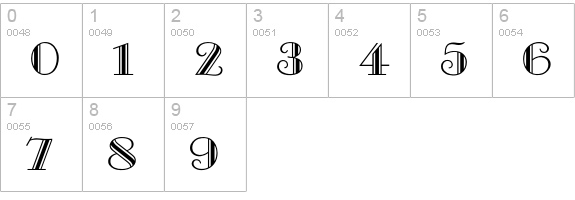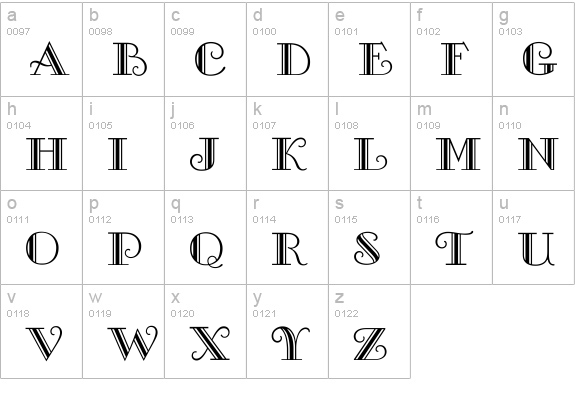
GalliaFont Font Details
GalliaFont is an exquisite and versatile typeface that combines elegance with a touch of modernity. This font is perfect for creating captivating designs, whether it be for branding, advertising, or any creative project. With its clean lines and distinct letterforms, GalliaFont effortlessly adds a sophisticated and professional aesthetic to any text. What sets GalliaFont apart is not only its stunning visual appeal but also its accessibility. It is available as a free download exclusively at FontsMarket.com. This means that designers, artists, and enthusiasts alike can easily obtain this remarkable font without any financial barriers. The versatility of GalliaFont is truly remarkable - it can be used for both headings and body text, ensuring consistency throughout your design. Its legibility and charm make it an excellent choice for print and digital mediums, such as magazines, websites, posters, and more. GalliaFont boasts a wide range of characters, including uppercase and lowercase letters, numerals, punctuation marks, and special symbols. This extensive character set allows for endless creative possibilities, ensuring that your designs will stand out from the crowd. Whether you are a professional designer or a hobbyist, GalliaFont is a must-have in your font collection. Its timeless elegance and freely available nature make it an exceptional choice for any project. Download GalliaFont today from FontsMarket.com and elevate your designs to new heights.